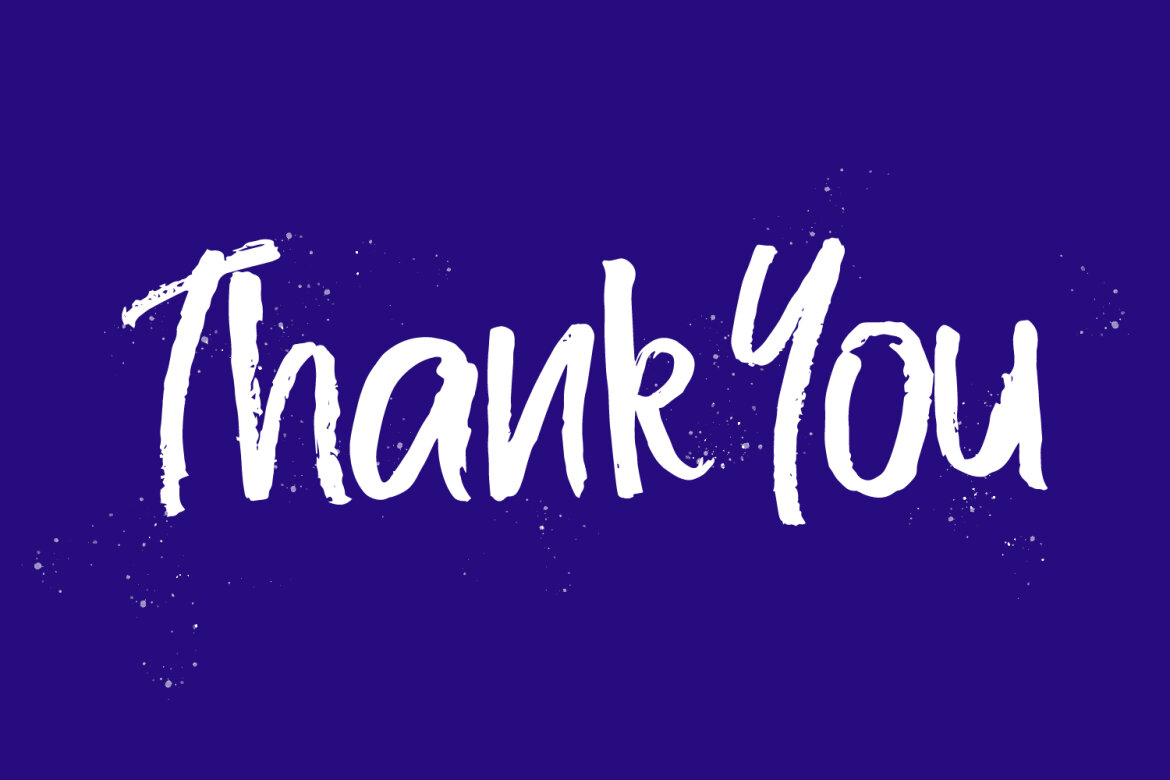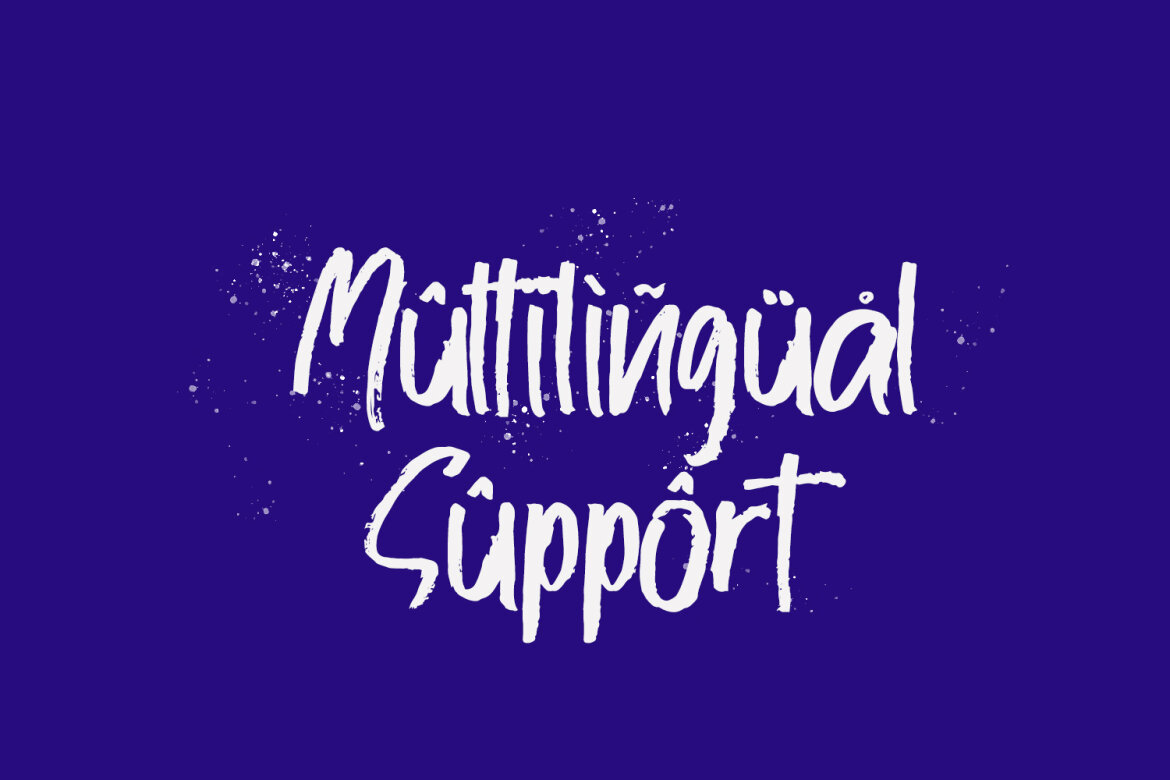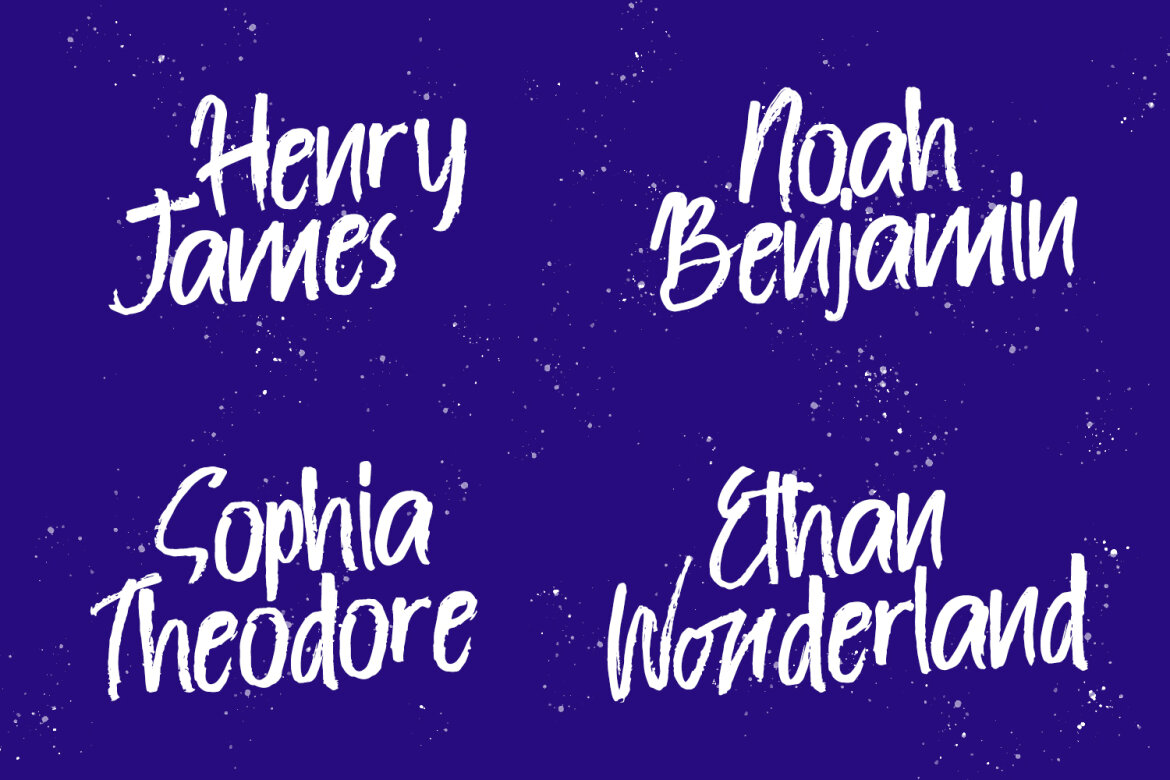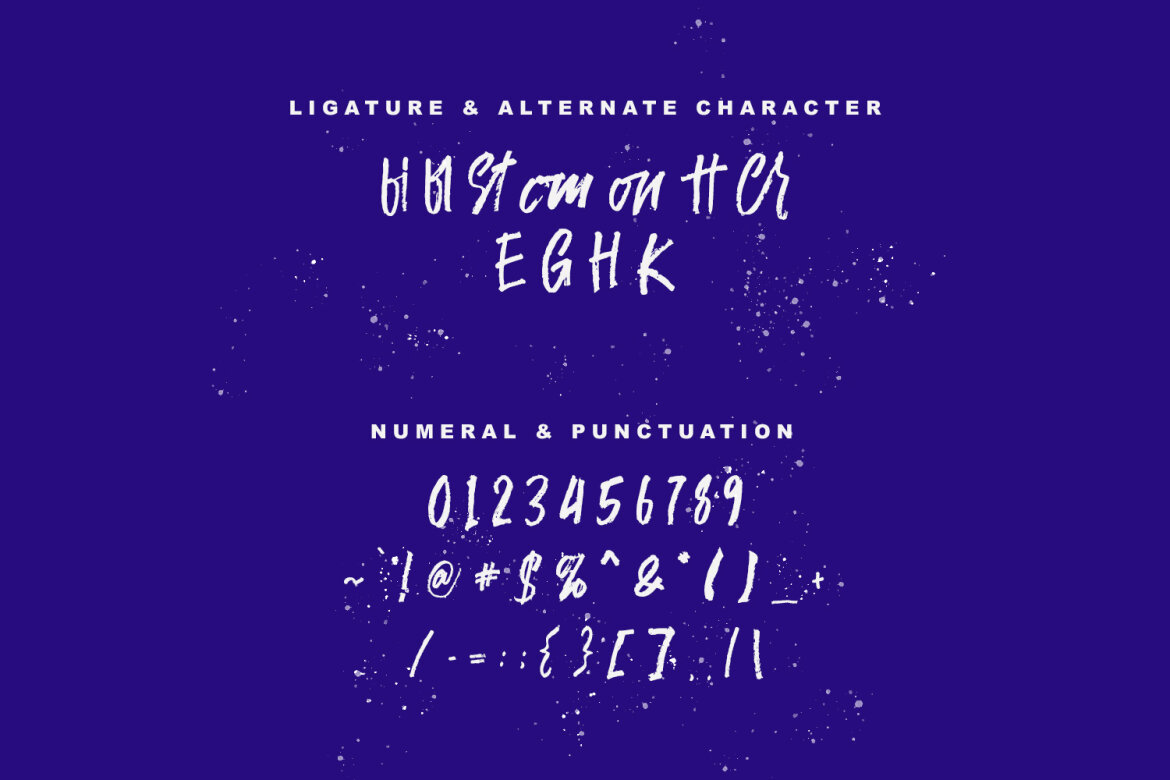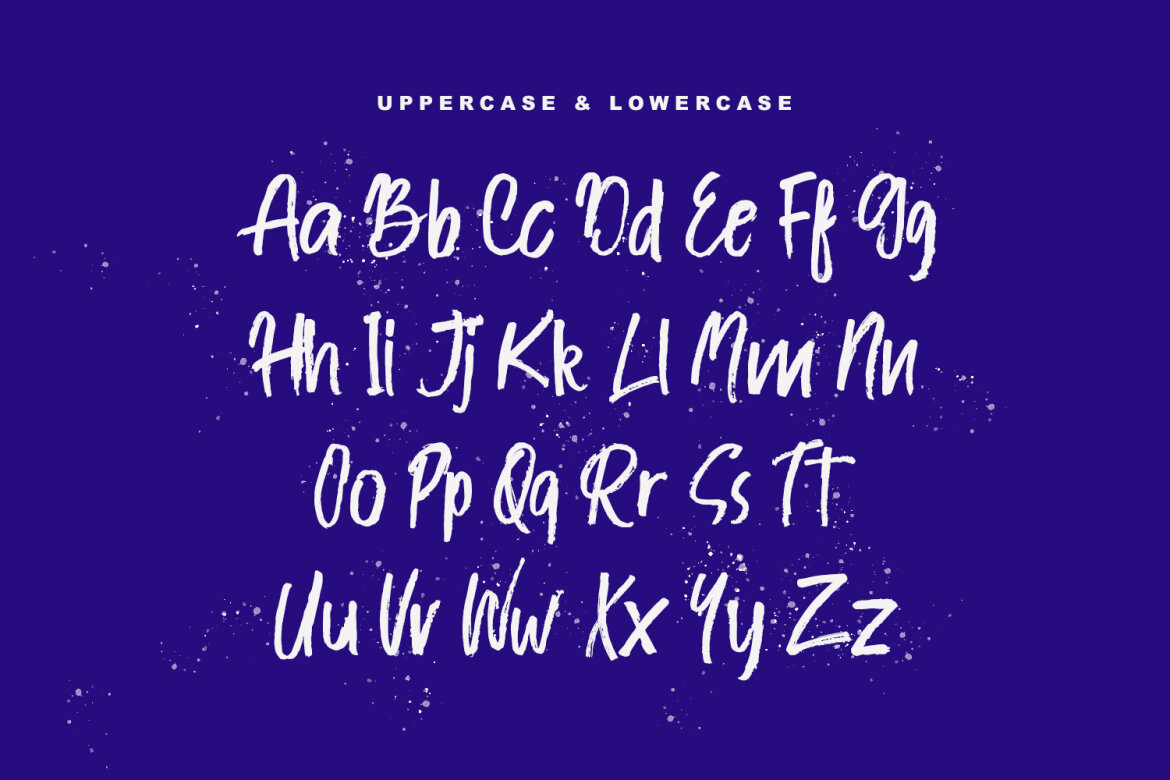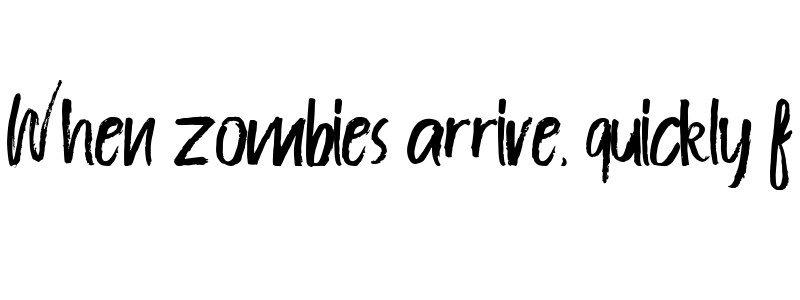
Cronest Script Brush FREE Font
Cronest script brush font. This font is good for logo design, Social media, Movie Titles, Books Titles, a short text even a long text letter and good for your secondary text font with signature or script typeface. Make a stunning work with Cronest script brush font.